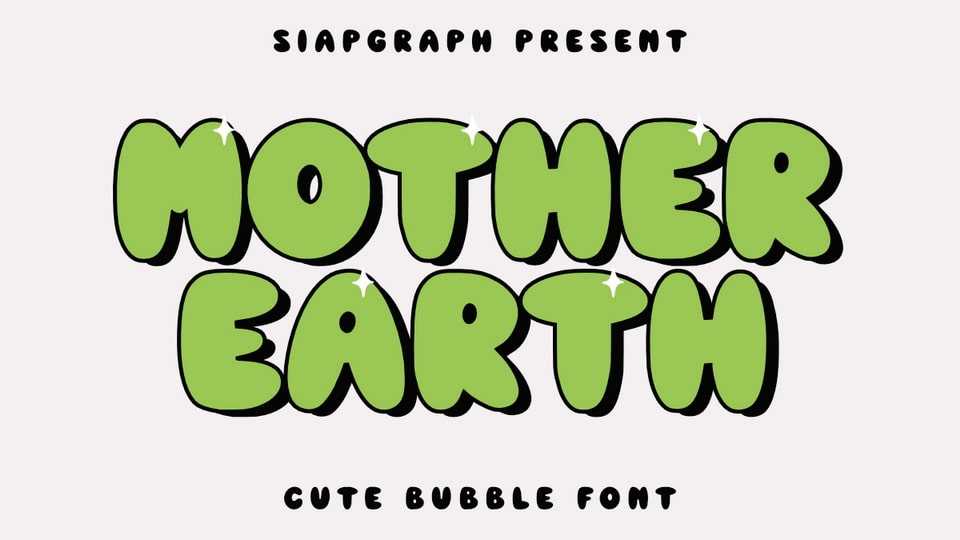
Download Mother Earth font, a cute and playful bubble typeface with a fun, bouncy feel, inspired by nature and eco-friendly themes.
Designer: SiapGraph